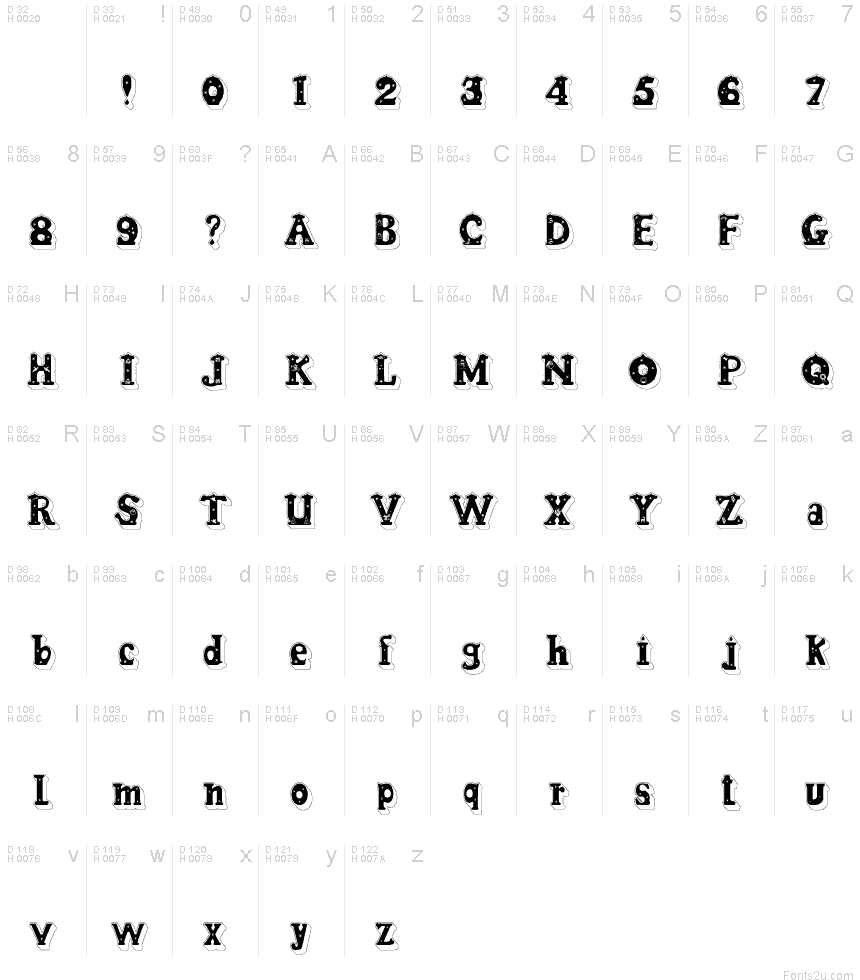
Candle3d by D.L. of FontDen is a free Christmas display font with broad slab-serif letters and a deep offset shadow. Decorative cut-ins scatter snowflakes, trees, gifts, and tiny winter scenes through the faces. The result recalls hand-cut holiday signage.
It is strongest on seasonal posters, where the illustrated letters can supply both wording and ornament. Toy packaging and party invitations also suit its cheerful bulk, especially when the artwork leans toward a busy, homemade Christmas style. In publishing, it could turn a children's activity-book cover or a festive feature opener into a miniature winter scene rather than ordinary display text.